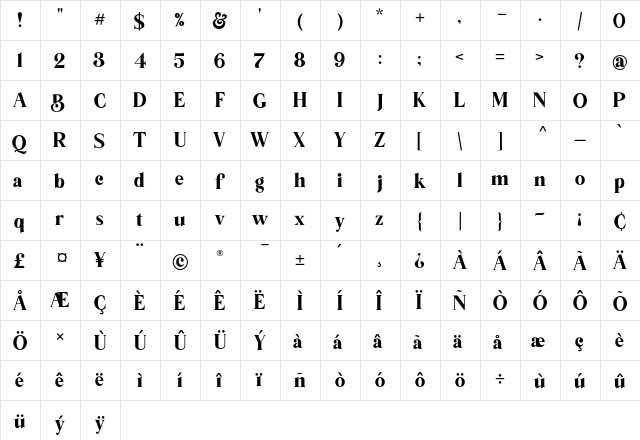
Backslash Regular
| Foundry | Silverdav Studio |
| Designer | David Kasidi |
Design Context for Backslash Typeface
Backslash offers clean, dependable letterforms without strong stylistic allegiance, making it a practical choice for designers who need flexibility.